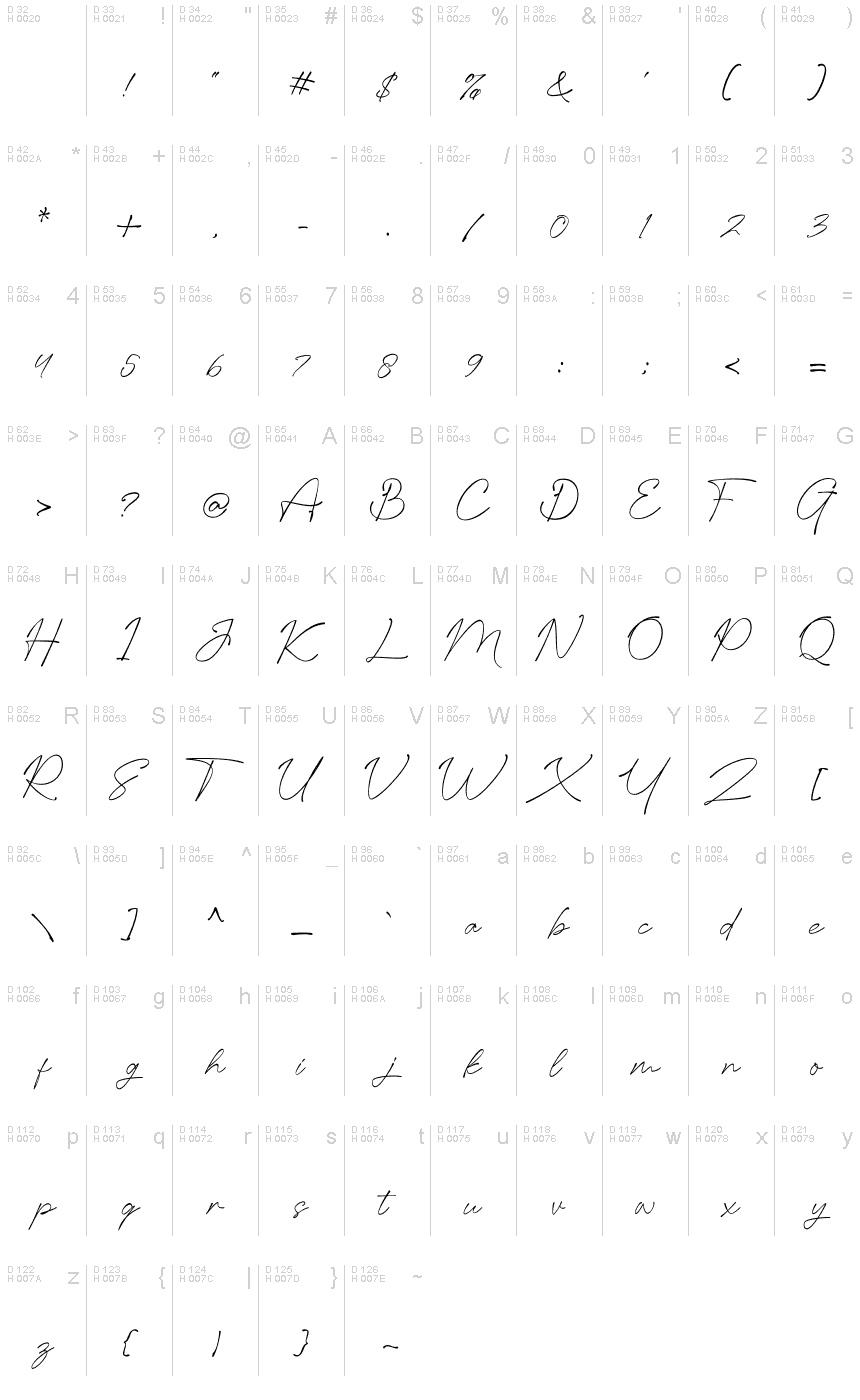
Glante
Glante font is a lovely light handwritten font designed by Typeline Studio.
This charming font will turn any creative idea into a standout.
Perfect for all logos, branding, social media, etc.